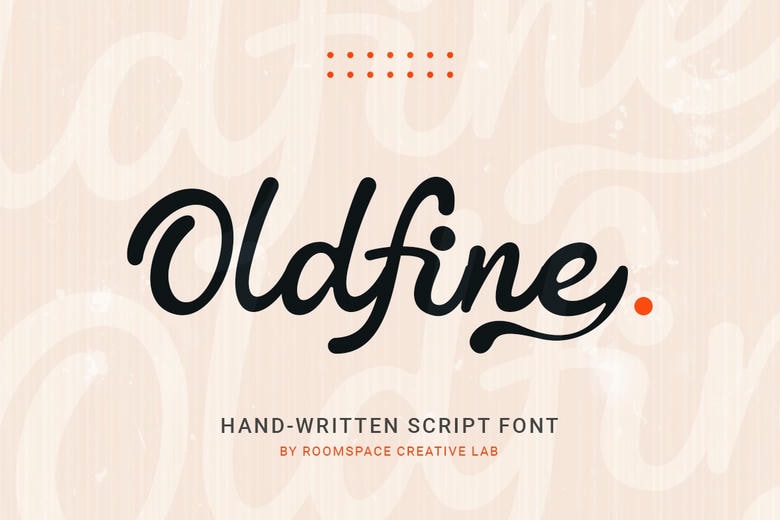
Oldfine Font
Oldfine is an advanced handwritten script font, based on careful attention to detail. Oldfine, created by Roomspace Creative Lab, has a cool and stylish feel, and is therefore the ideal solution to a variety of design projects. Oldfine adds a sense of sophistication and character to all her work, whether it is wedding invitations and greeting cards, logos, branding, or a social media graphic.
Oldfine Handwritten Script Font